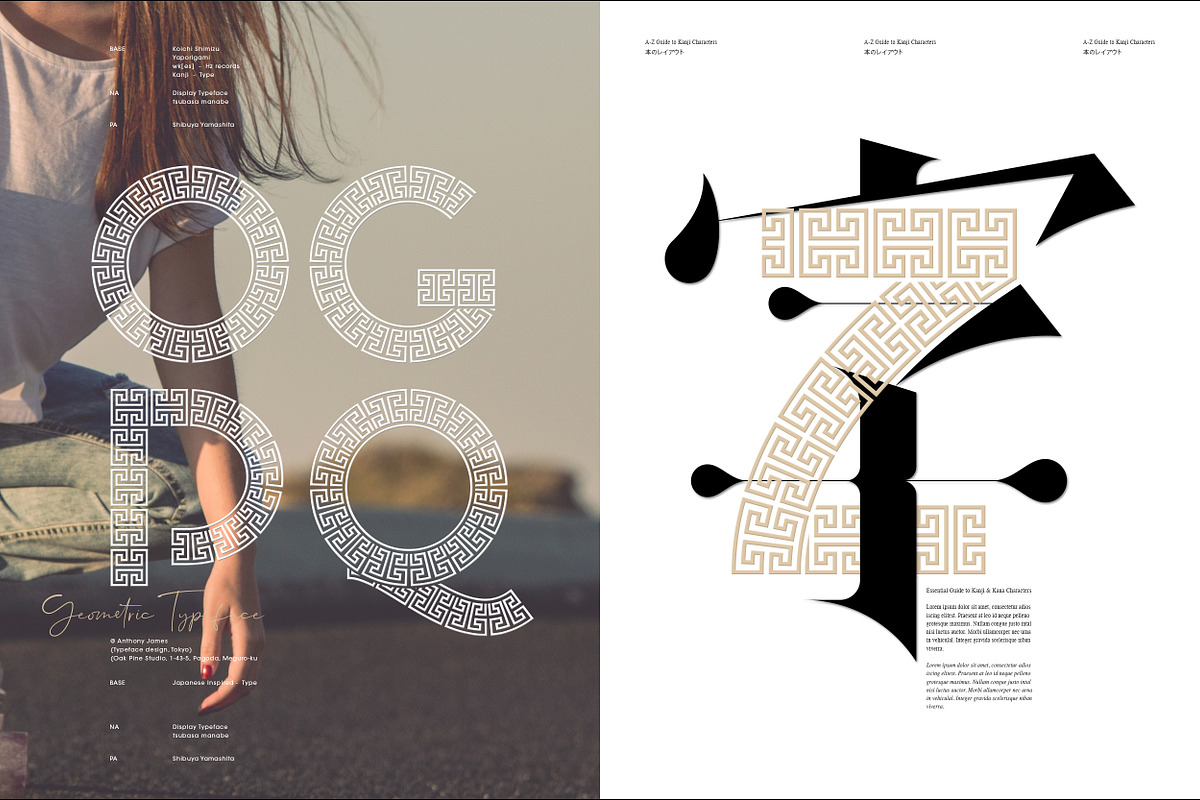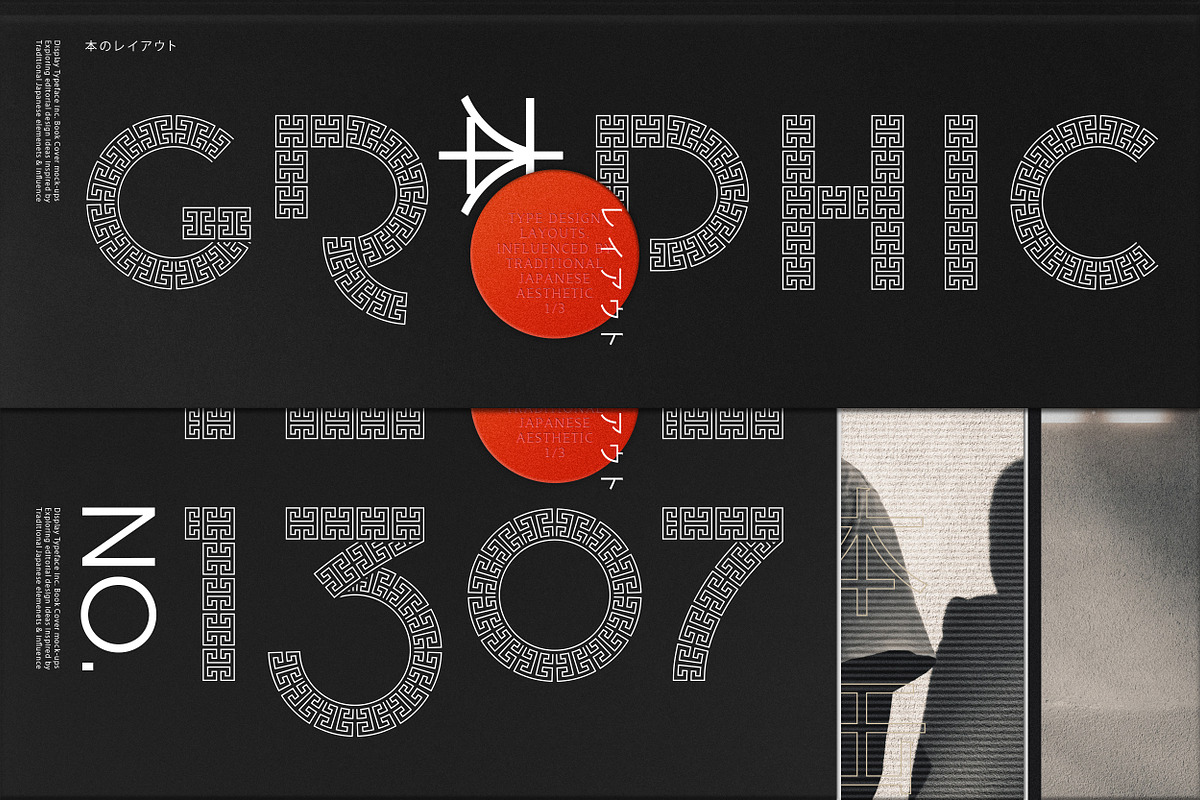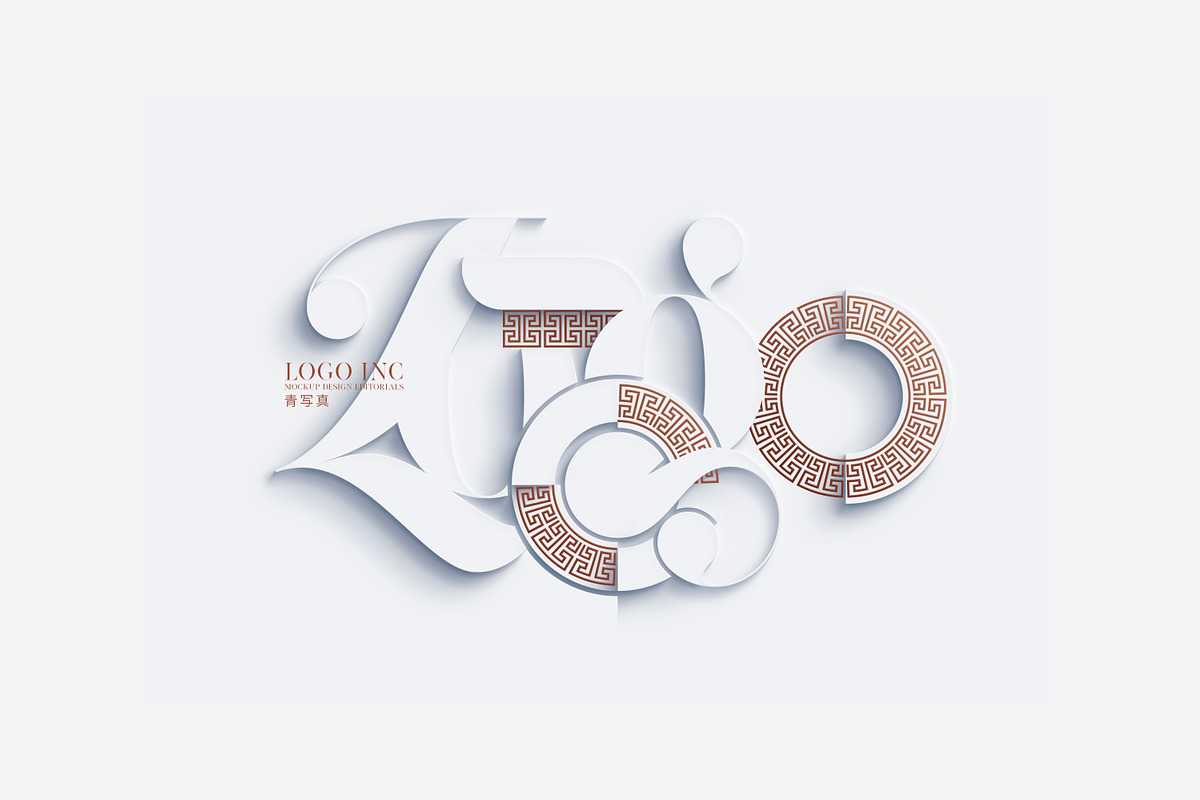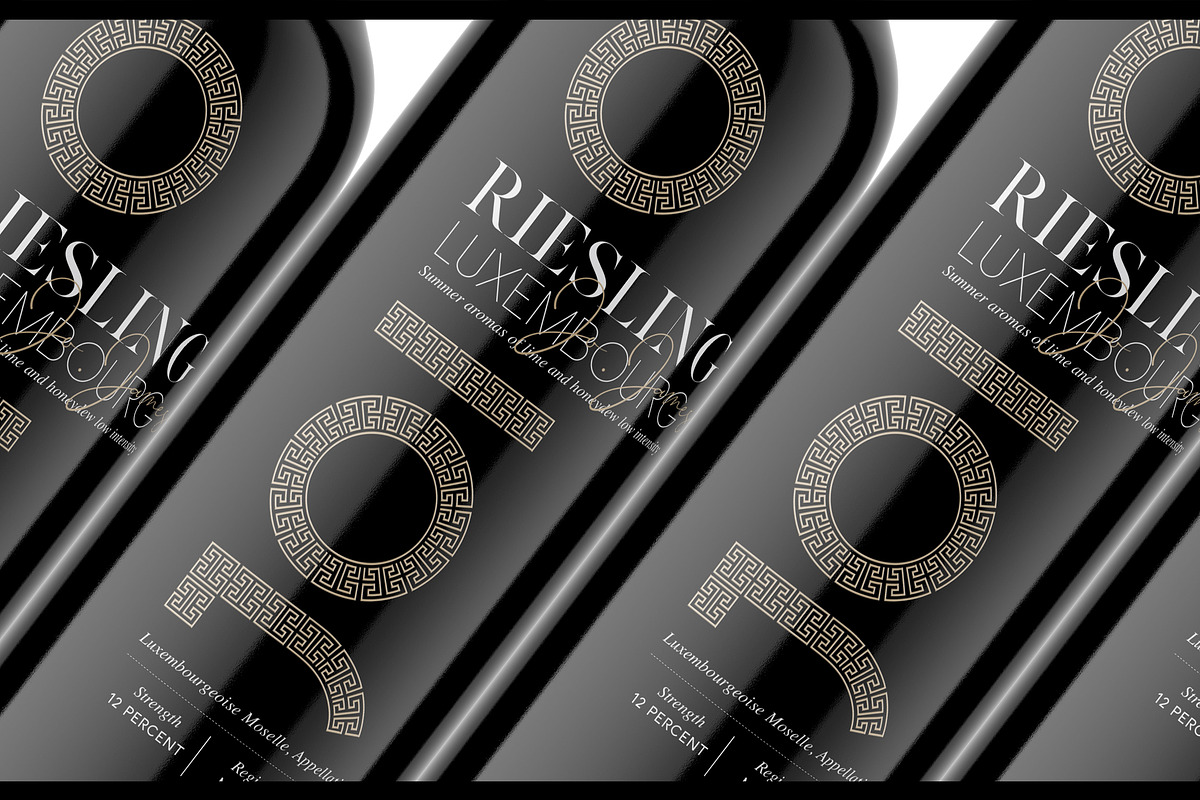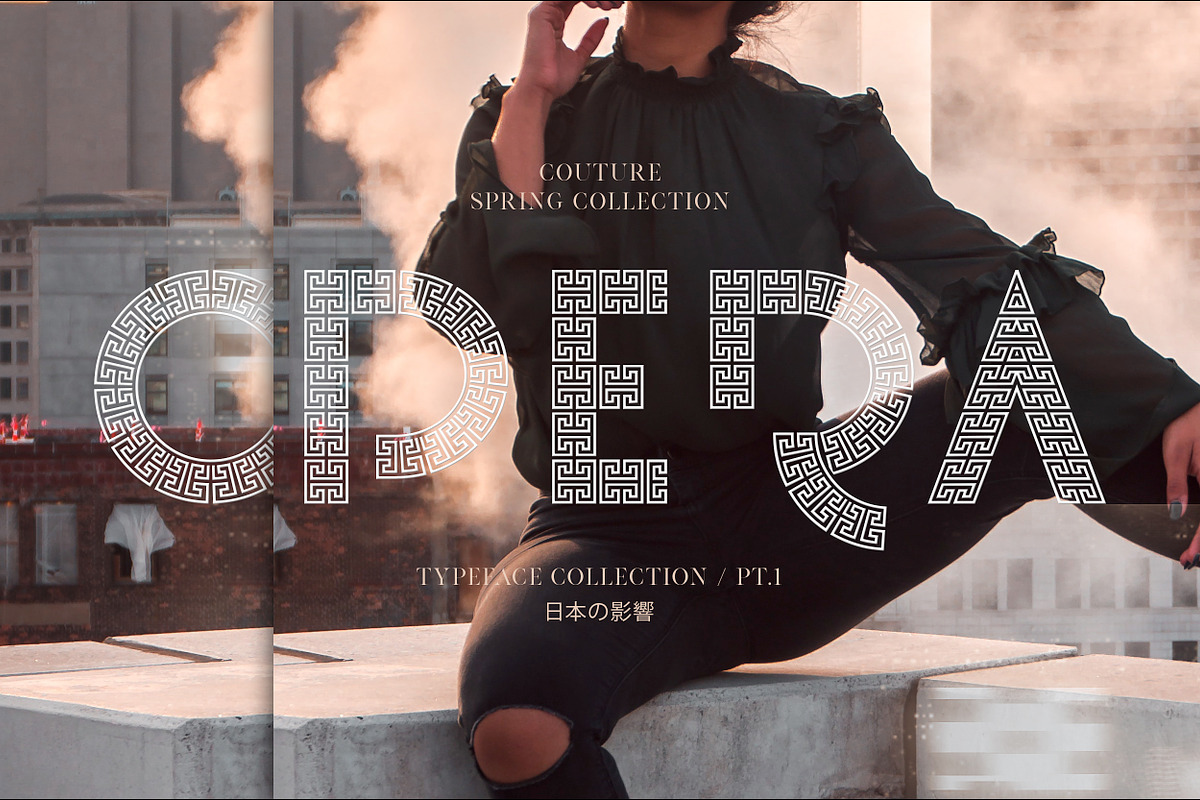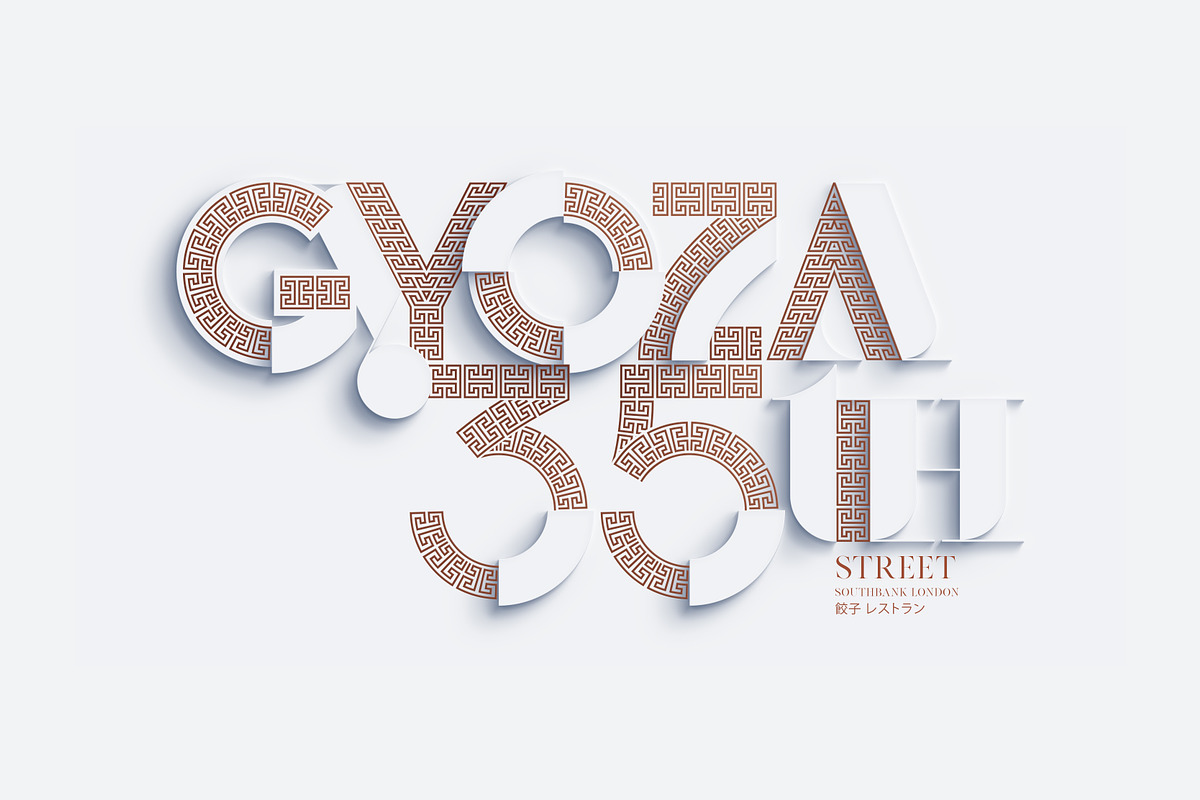
Mojita Font
Mojita is an intricate geometric typeface, with a beautifully well-balanced elegant design, not seen on other fonts. Inspired by Japanese Art Deco, as well as Aztec & Mayan pattern design. Completely uppercase, it houses 300 Glyphs, and contains extended language support (120 Latin based languages).
Mojita has great versatility in its application, perfect for Retail, Editorials and Logos, especially when applying a Handwritten Typeface Overlay. But works just as effectively when applied as stand-alone typographical artwork.
Perfect as a Display Font for Headings, Titles, Posters applications. Not suitable at a small text size, as the intrinsic detail is lost.
- Completely uppercase, it houses 300 Glyphs, and contains extended language support (120 Latin based languages).